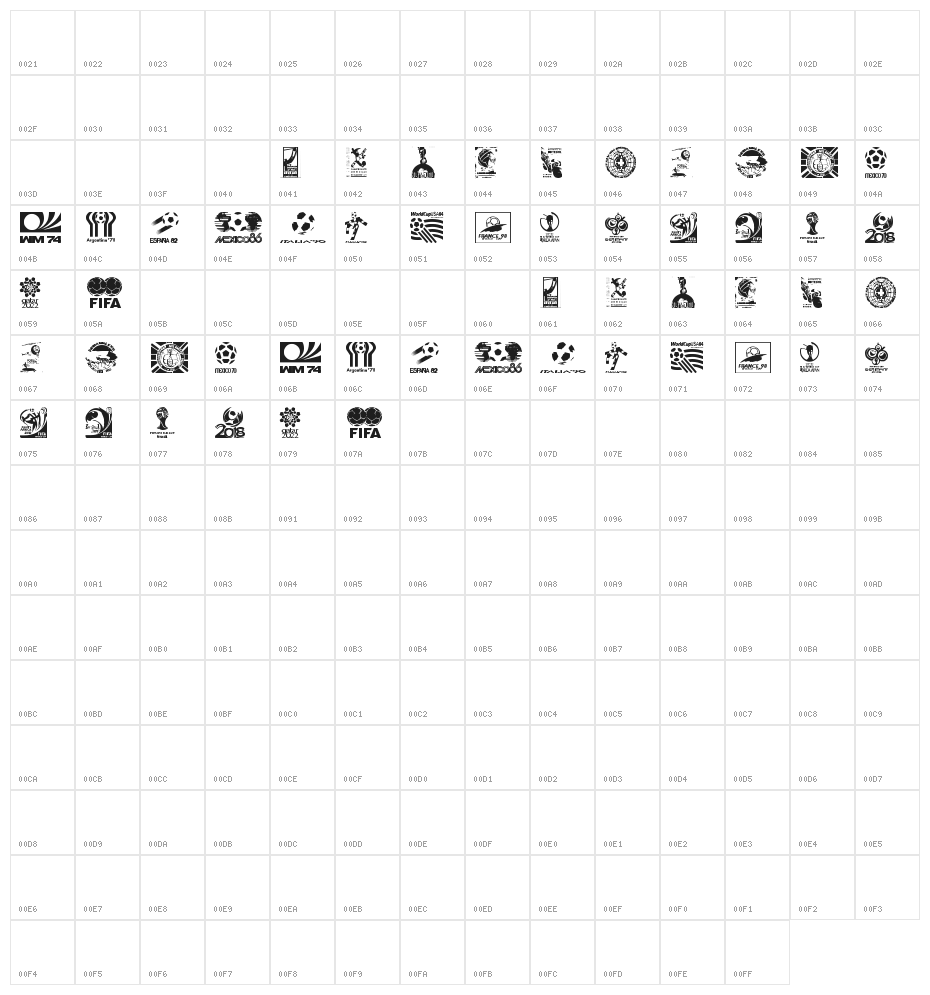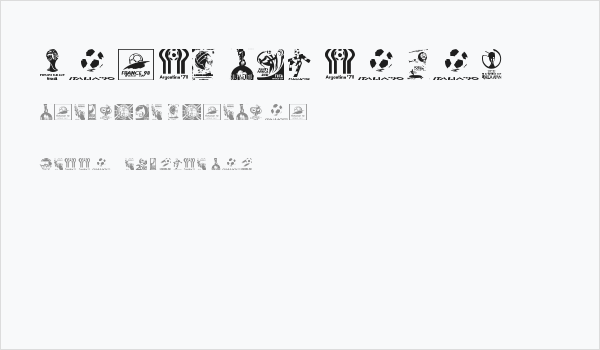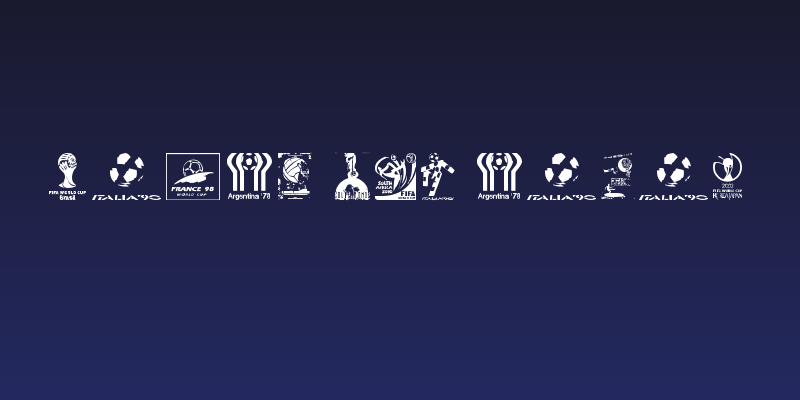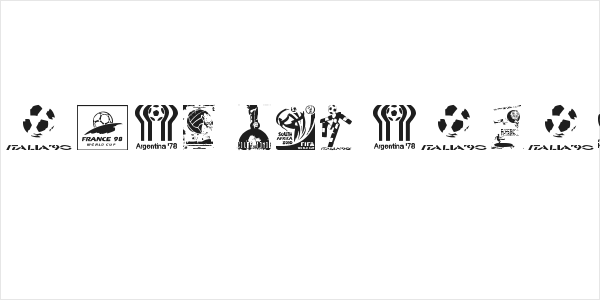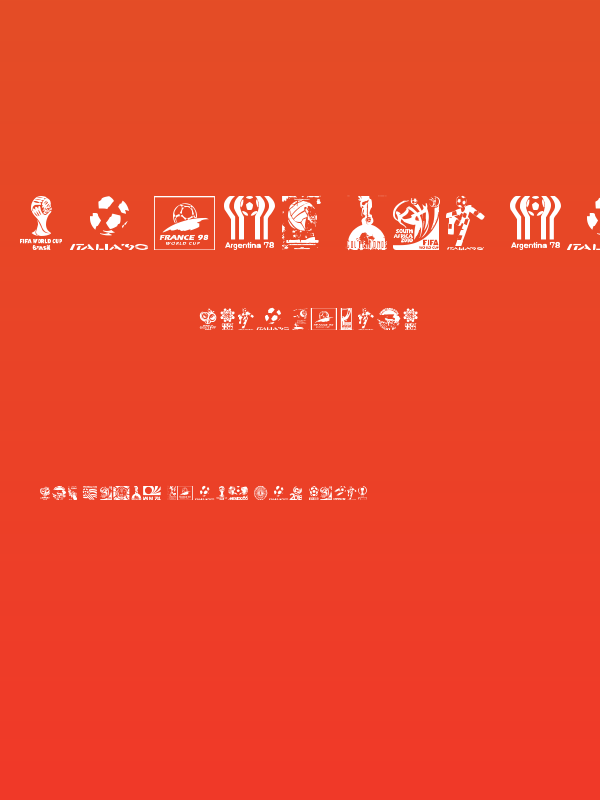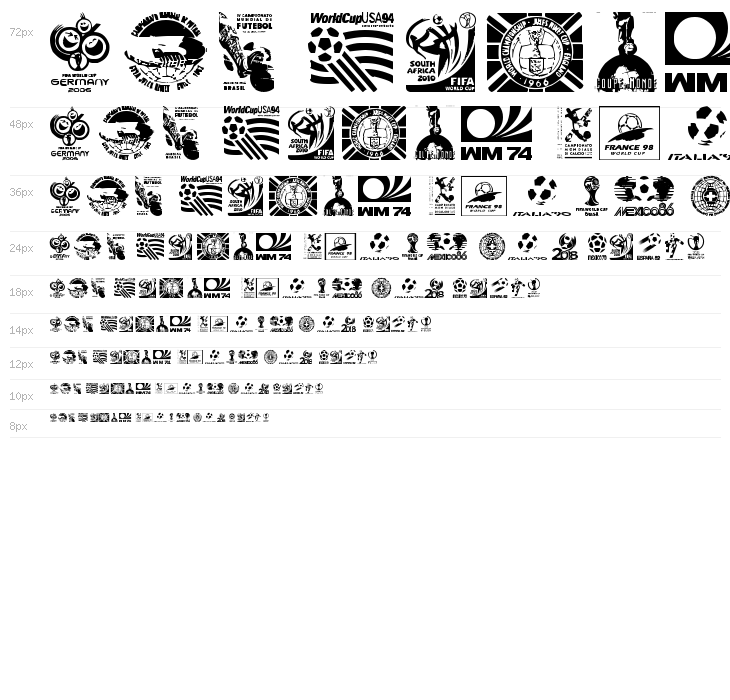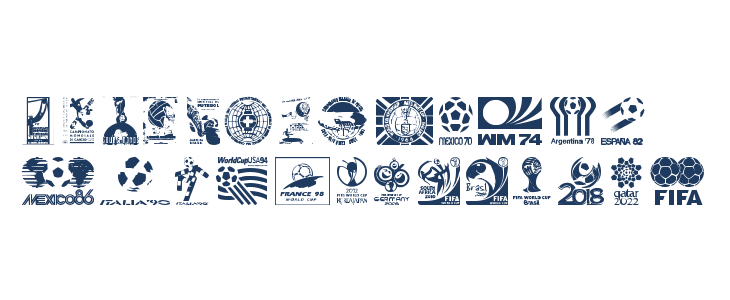
World Cup logos Font
World Cup logos Description
This image contains a collection of FIFA World Cup logos from various years, each featuring unique typographic and graphic elements. The fonts used in these logos vary widely, including geometric sans-serif, bold display, and stylized decorative lettering, often paired with illustrative or emblematic graphics. The text styles range from clean and modern to vintage and ornamental, reflecting the design trends of each era.
| Overall Style | Decorative, Vintage, Modern |
| Use Case | Logos, Headlines, Posters, Branding |
| Proposed Projects | Sports branding, event posters, commemorative merchandise, logo design, retro-themed graphics. |